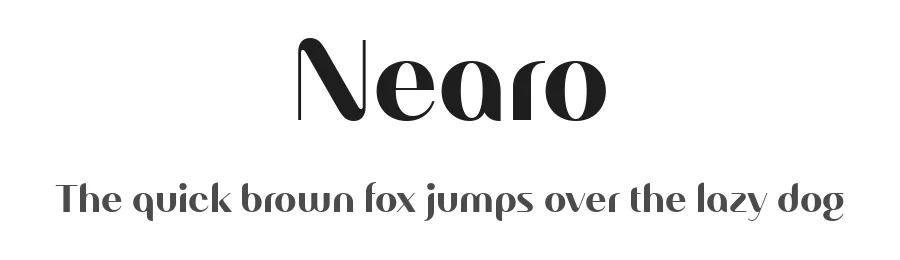
About Nearo Rounded Font
Nearo Rounded features five high-contrast font styles and thick and thin round shapes making this font unique.
Nearo Rounded Specifications
| Font Family | Nearo Rounded |
| Full Name | Nearo Rounded Bold |
| PostScript Name | NearoRounded-Bold |
| Designer | Yusuf Niki Syahroni |
Nearo Rounded Font is a versatile sans-serif font that works for both headings and body text. Pair it with a contrasting serif or slab serif font to add visual interest and a clear distinction between titles and body copy.
Nearo Rounded Font